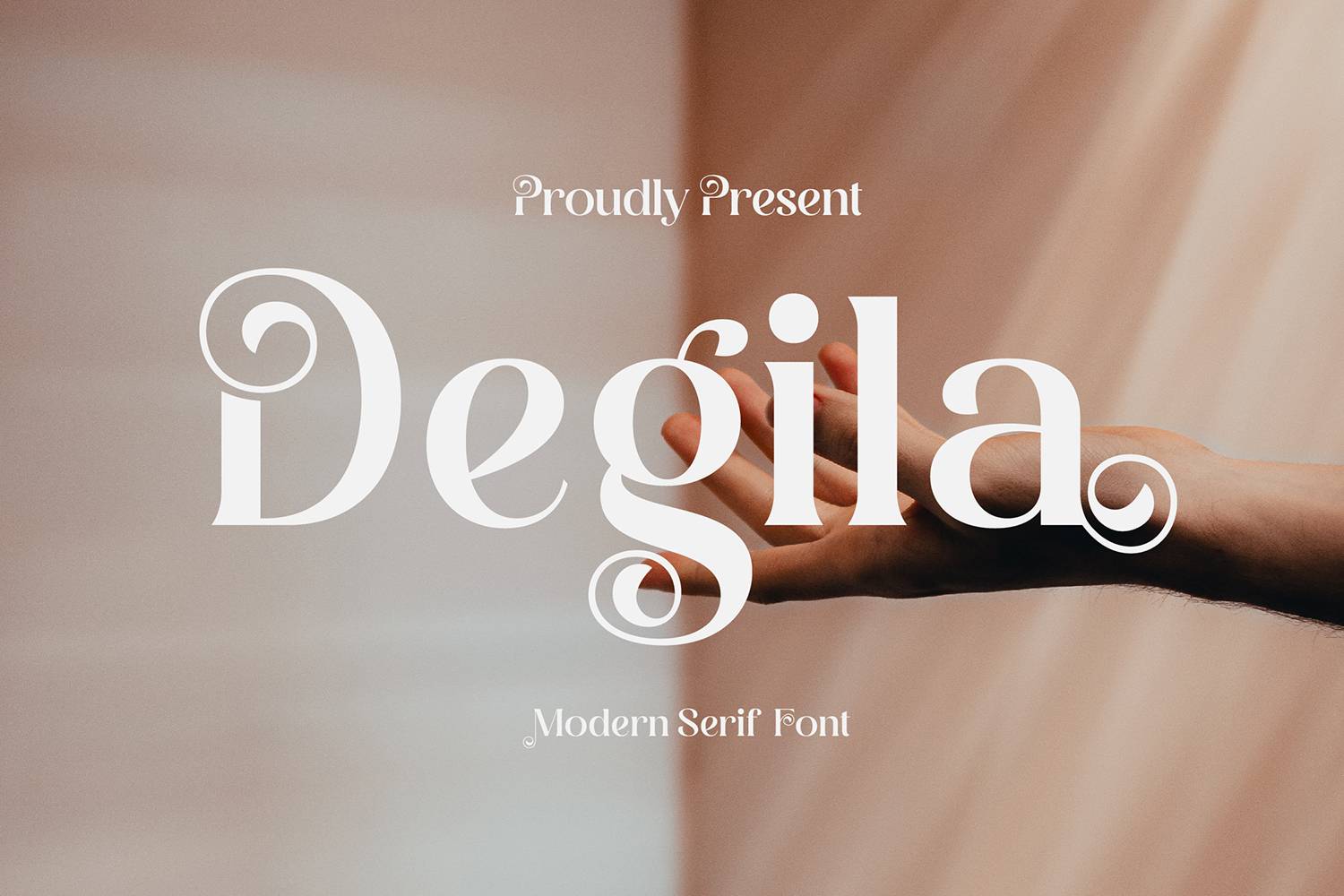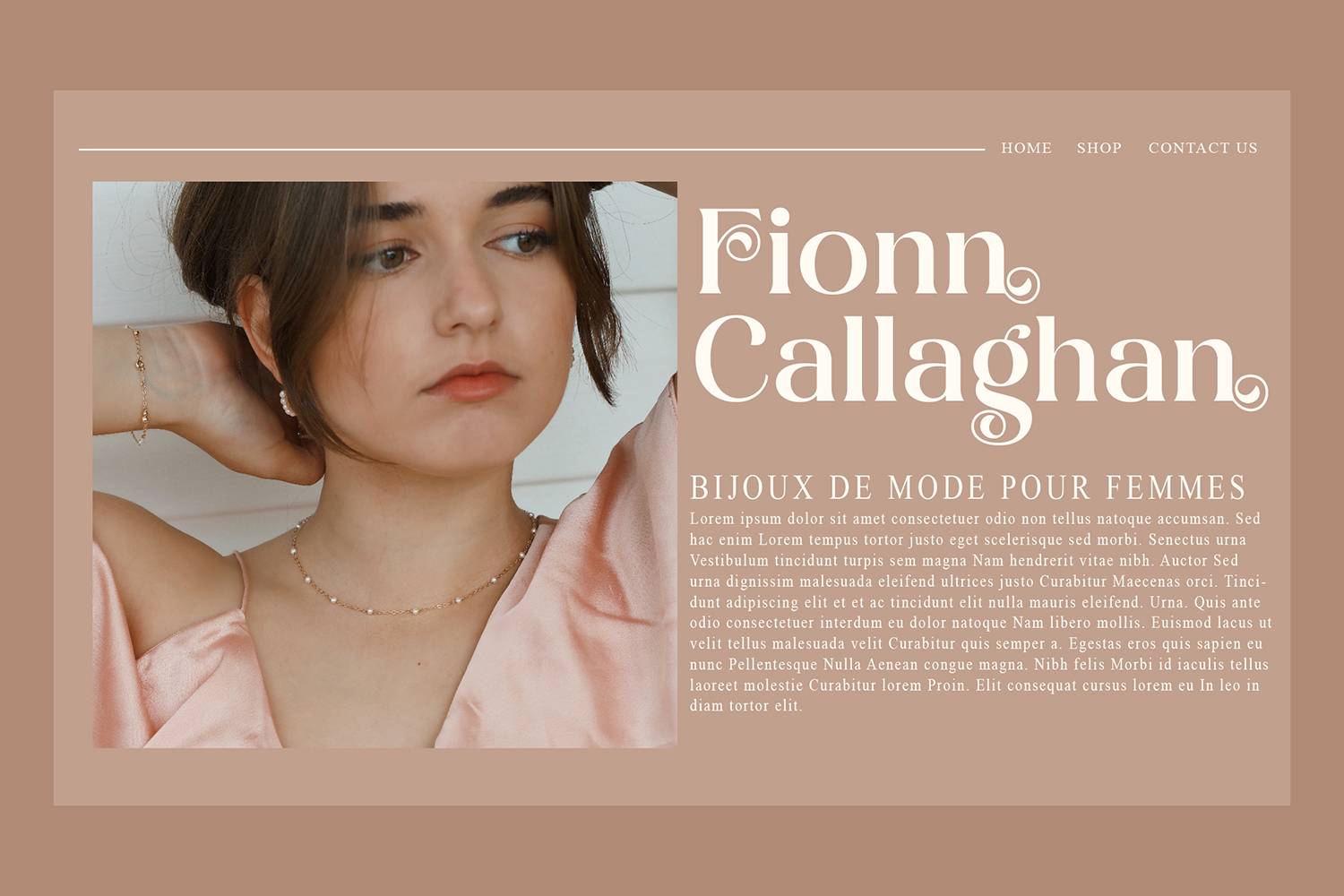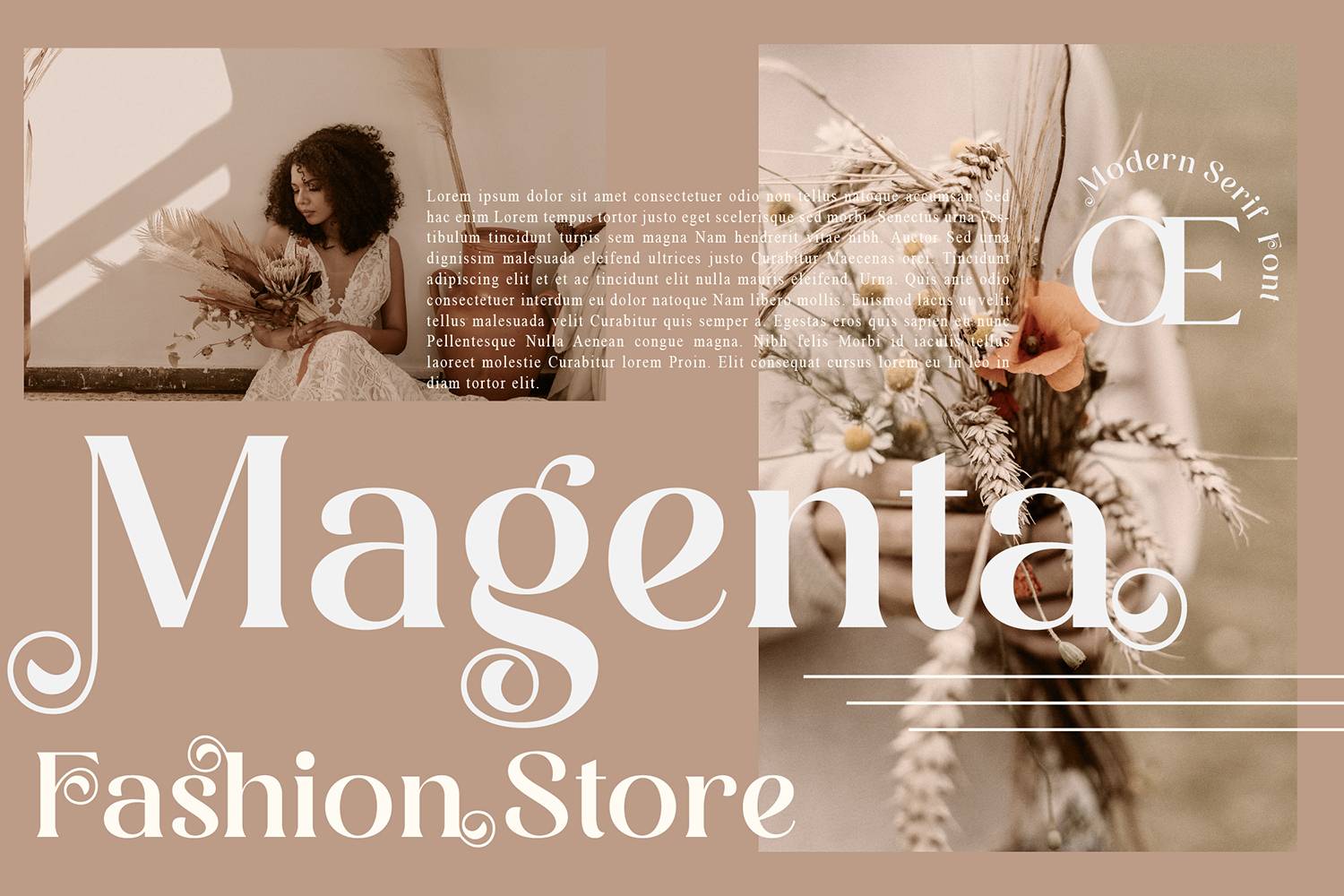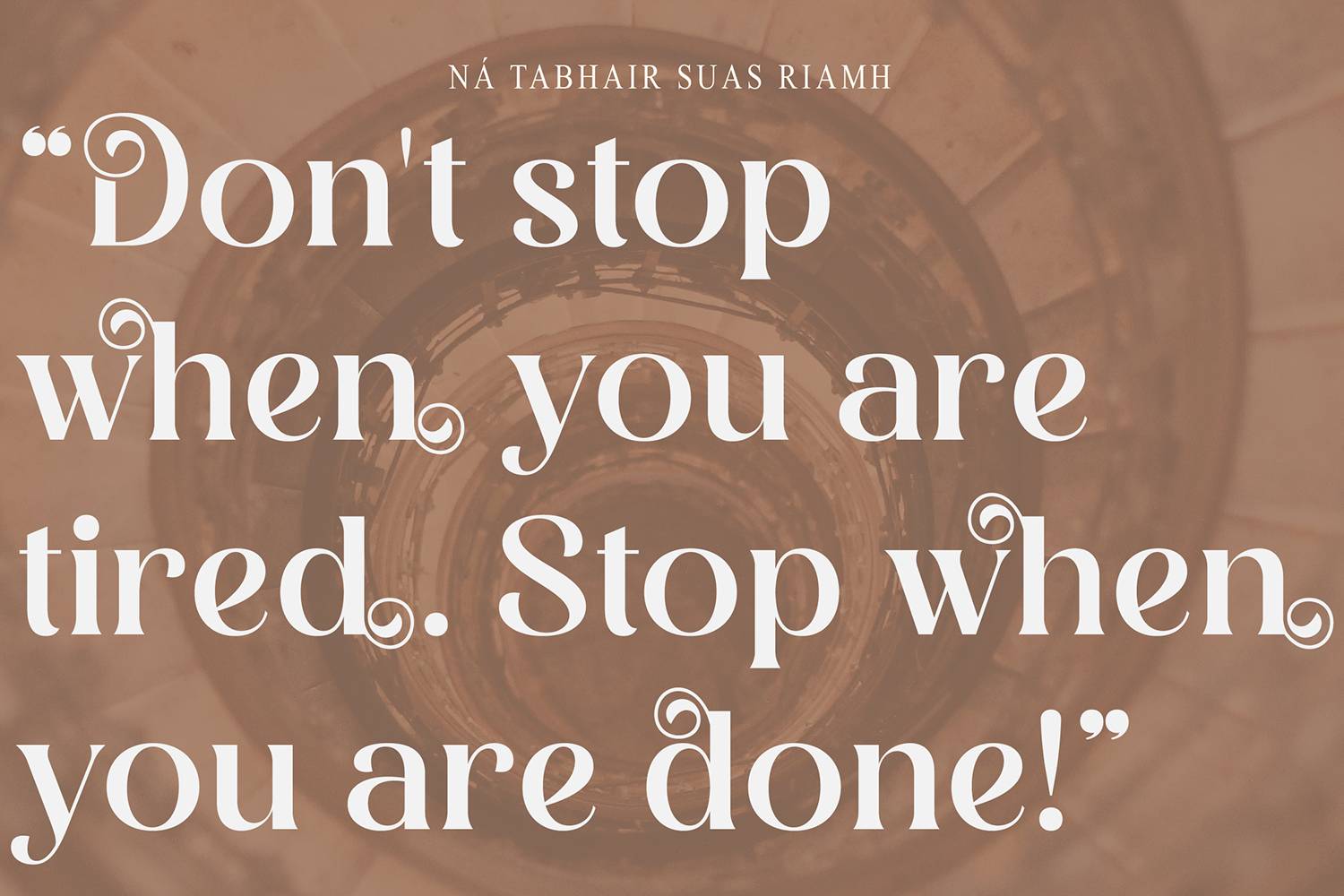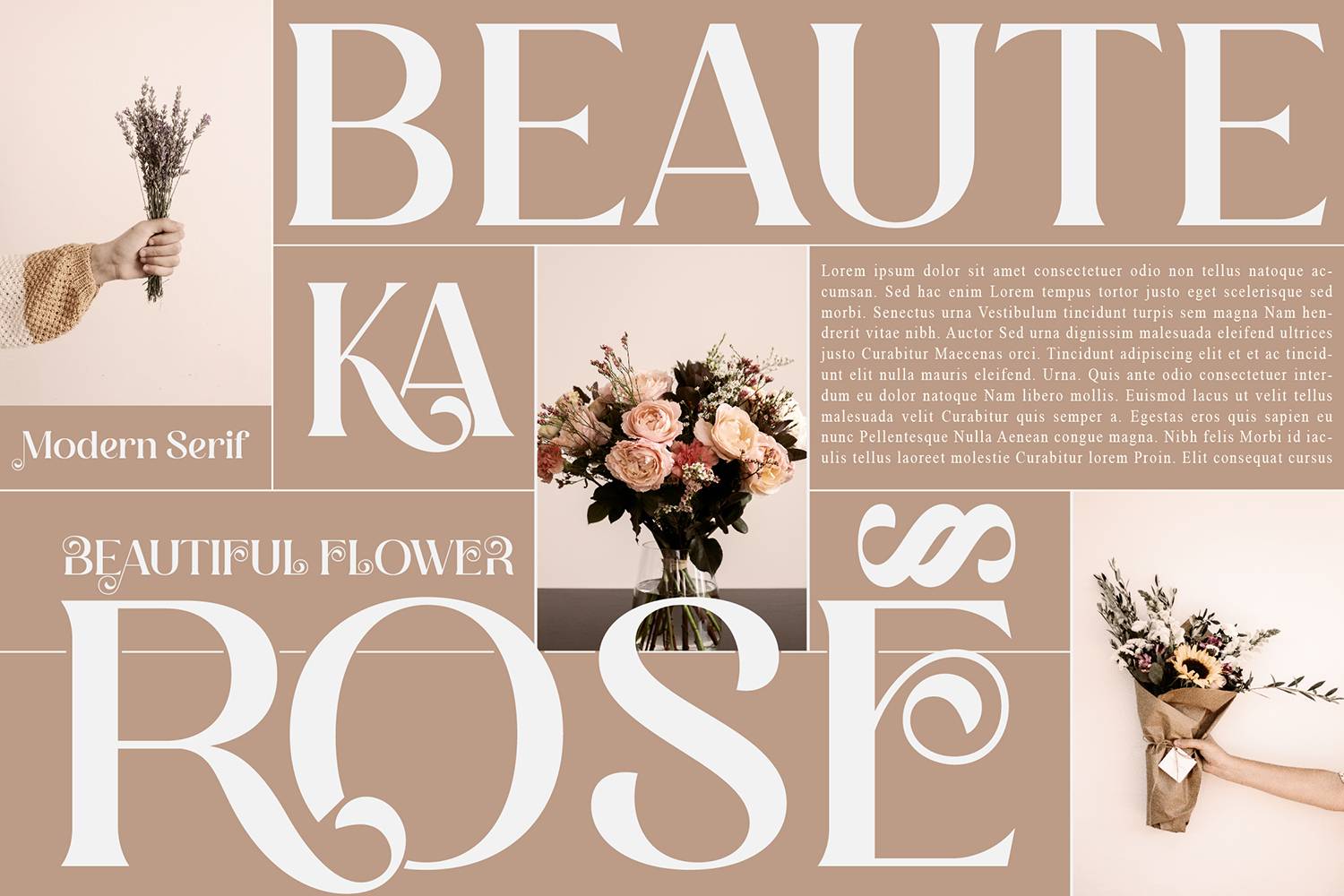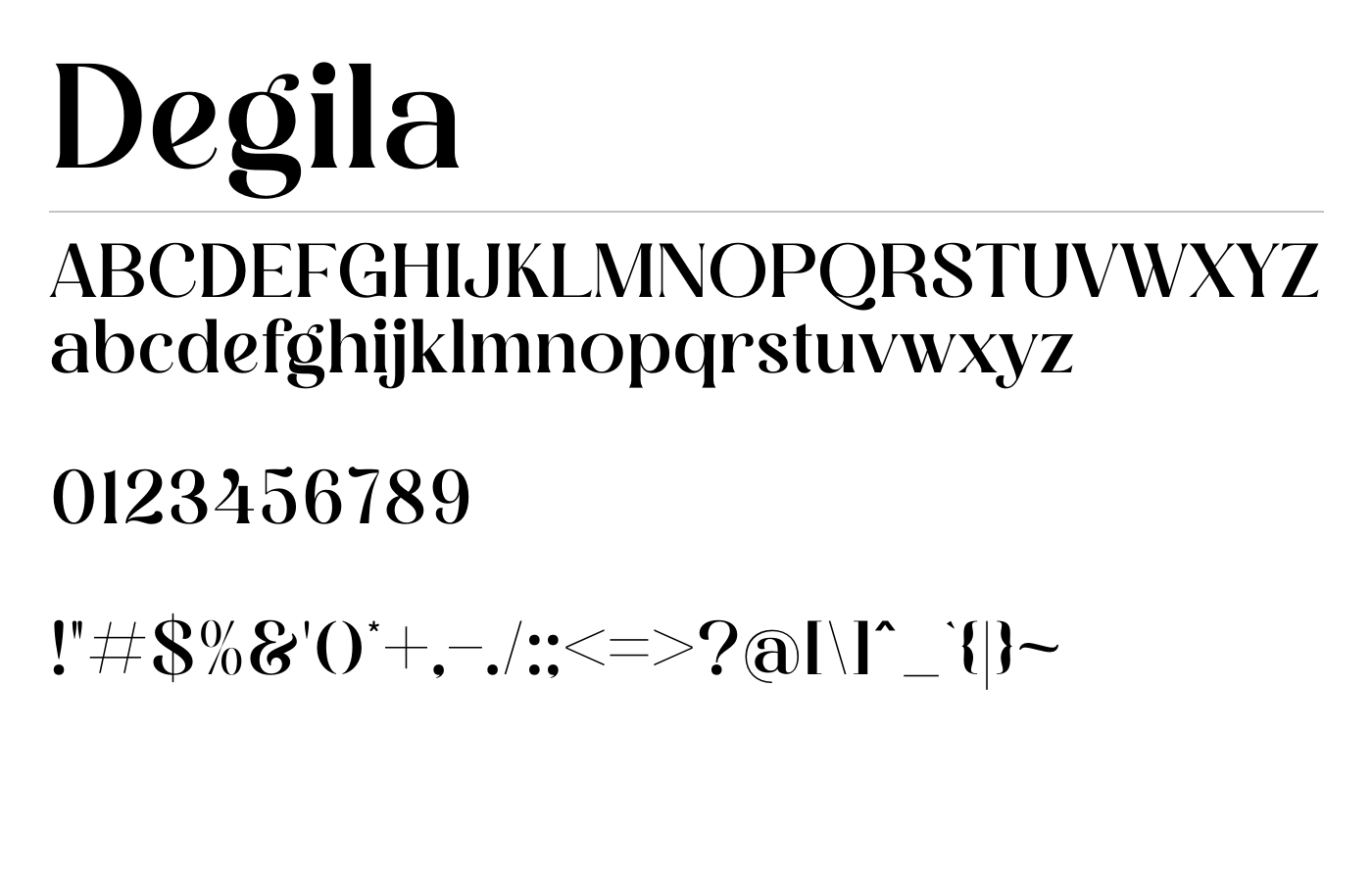
Degila is a sophisticated serif font with a modern Didone style, featuring high contrast between thick and thin strokes and elegant, sharp serifs that convey luxury and refinement. Its moderately tall x-height and well-balanced letterforms, including distinctive double-story g and refined details like the curled Q tail, make it perfect for upscale branding, editorial design, and stylish headlines where a touch of classic elegance is desired. This font works well in settings that require a polished, professional personality with a hint of vintage glamour.
Degila Font
About Degila Font